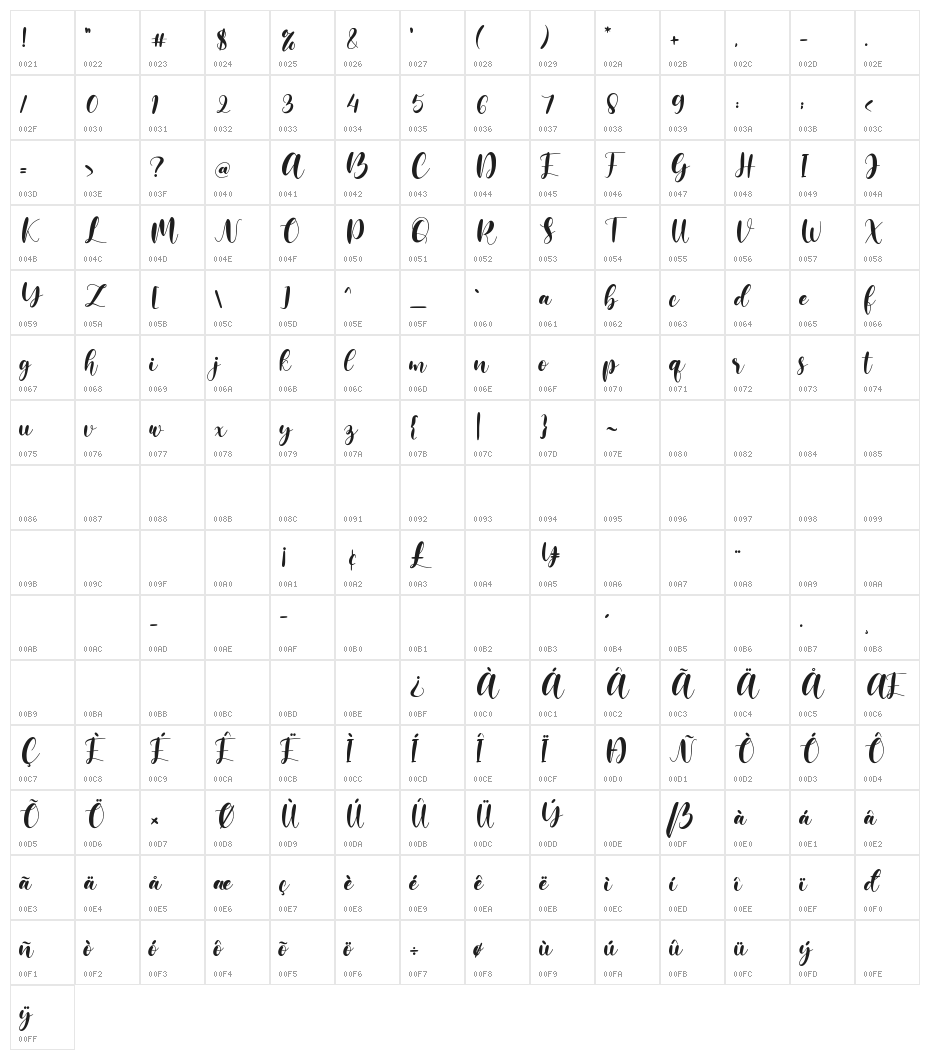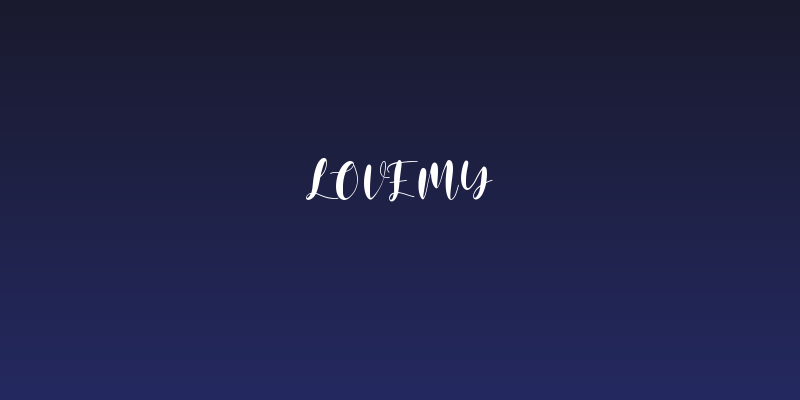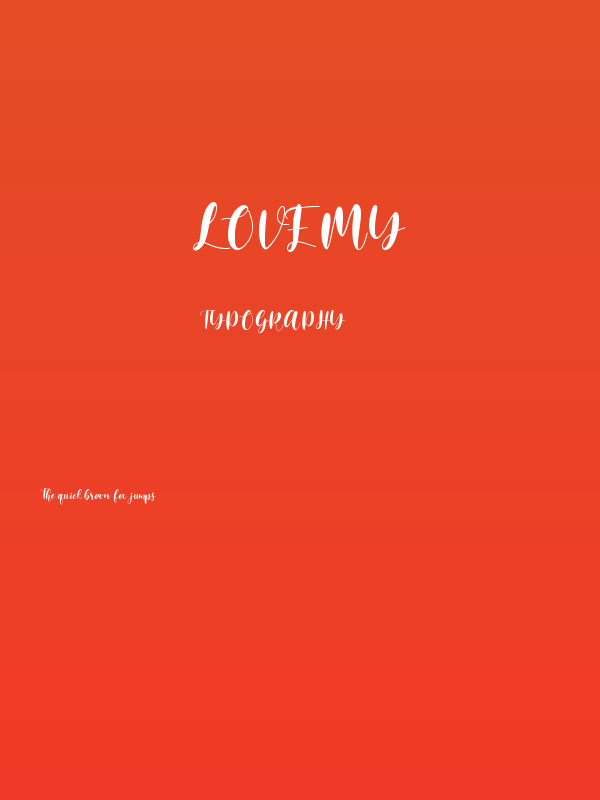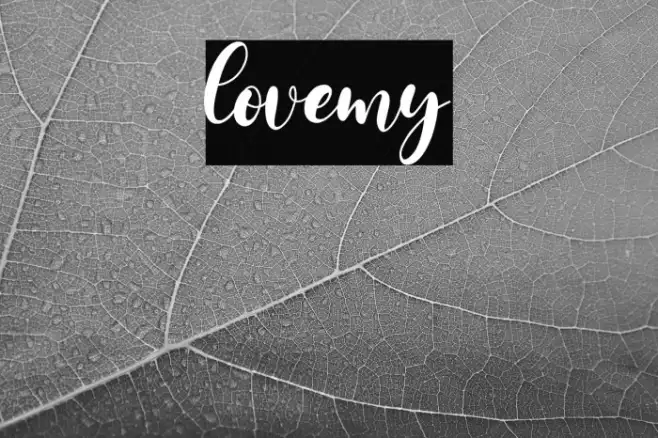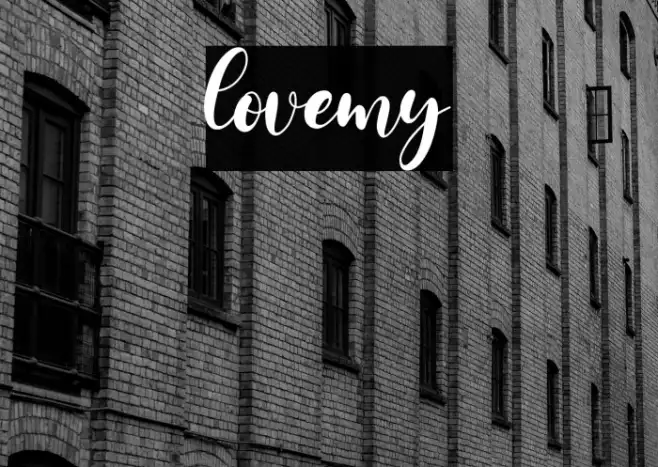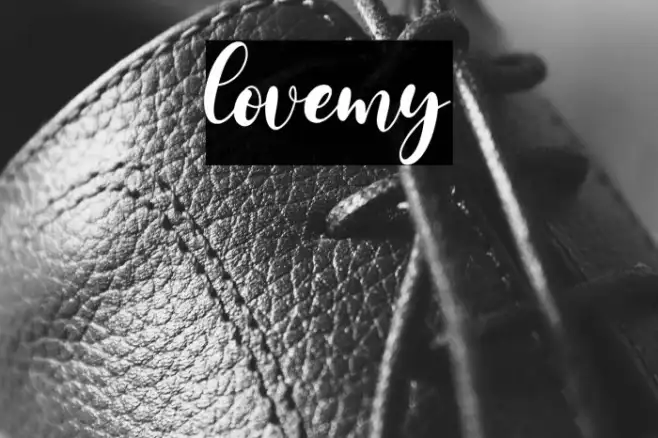
lovemy Font
lovemy Description
This font is a stylish and elegant script typeface that features fluid, flowing letterforms with a modern touch. The uppercase letters are bold and expressive, while the lowercase characters maintain a consistent, graceful flow. The numerals are distinct and easy to read, complementing the overall aesthetic. Special characters are thoughtfully designed to match the font's sophisticated style. The strokes vary in thickness, adding a dynamic and lively feel to the text. This font exudes a sense of creativity and elegance, making it suitable for a variety of design projects.
| Proposed Projects | Ideal for wedding invitations, branding, greeting cards, and elegant logos. |